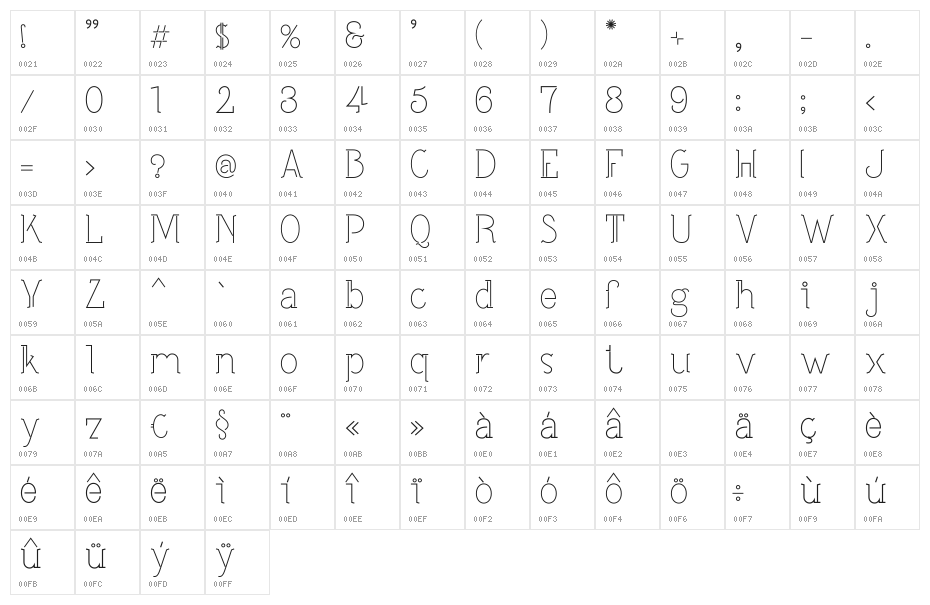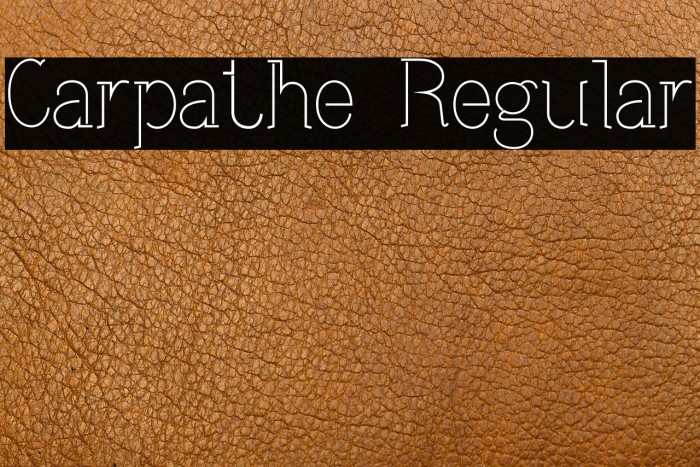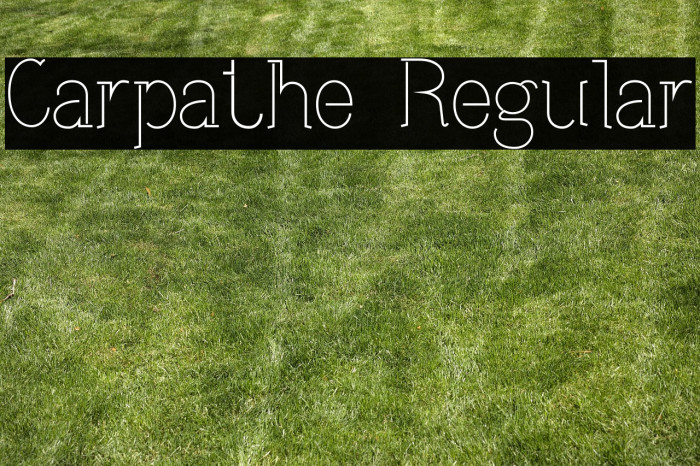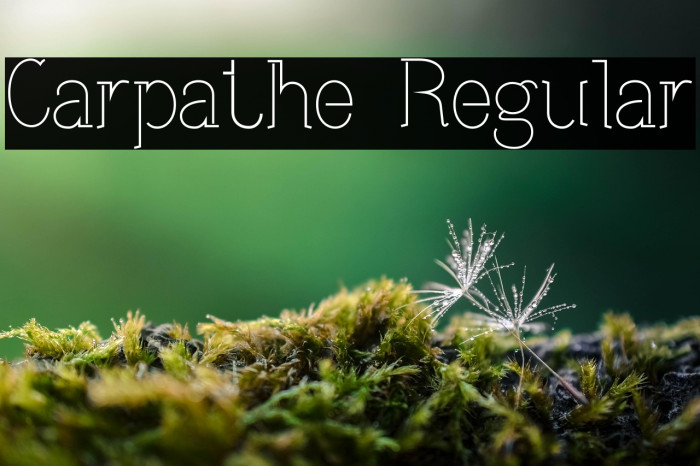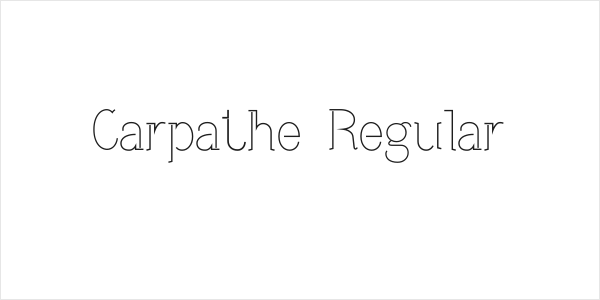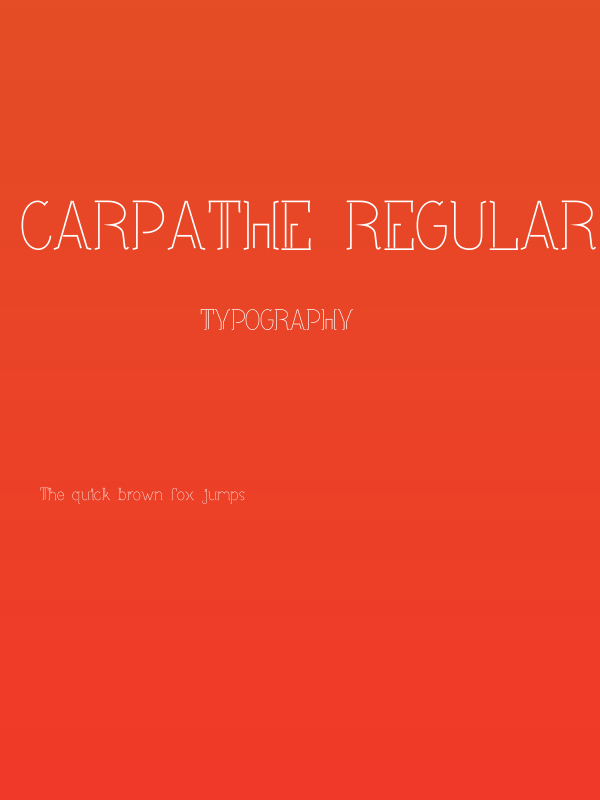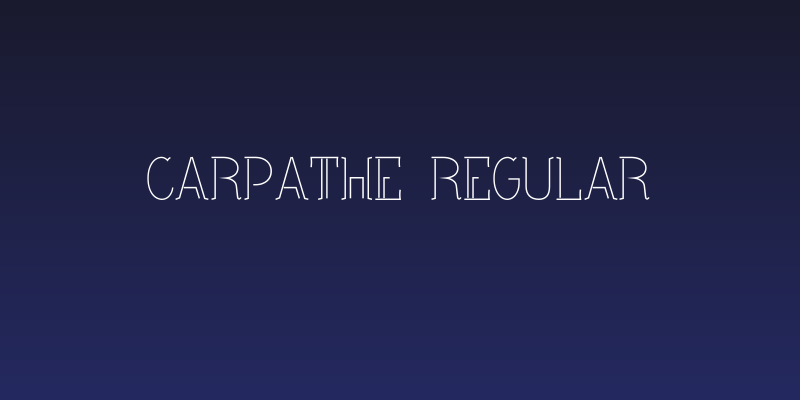
Carpathe Regular Font
Carpathe Regular Description
This font features a unique blend of geometric and decorative elements, creating a modern yet artistic appearance. The uppercase letters exhibit a distinct angular design with subtle curves, while the lowercase letters maintain a consistent style with slightly rounded edges. The numerals are bold and clear, ensuring readability. Special characters are creatively designed, adding a touch of elegance and flair. The overall design is clean and sophisticated, making it suitable for a variety of creative projects.
| Use Case | Logos, Headlines, Artistic projects |
| Proposed Projects | Ideal for branding, posters, invitations, and artistic projects requiring a modern and stylish touch. |